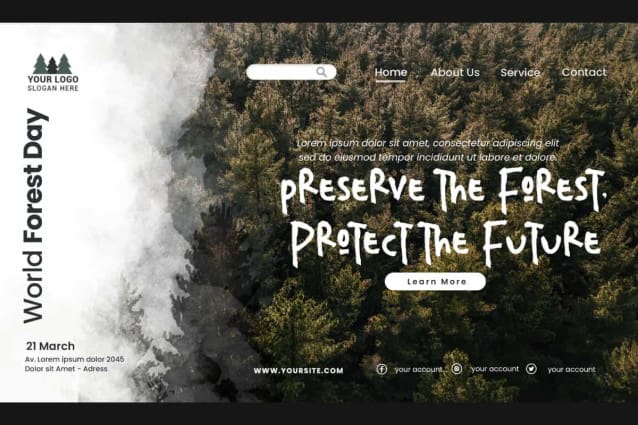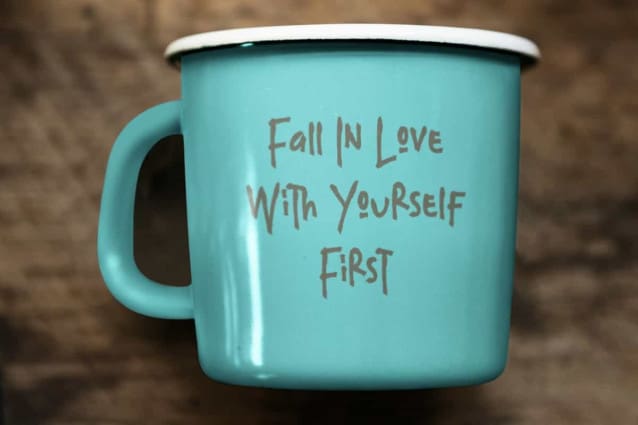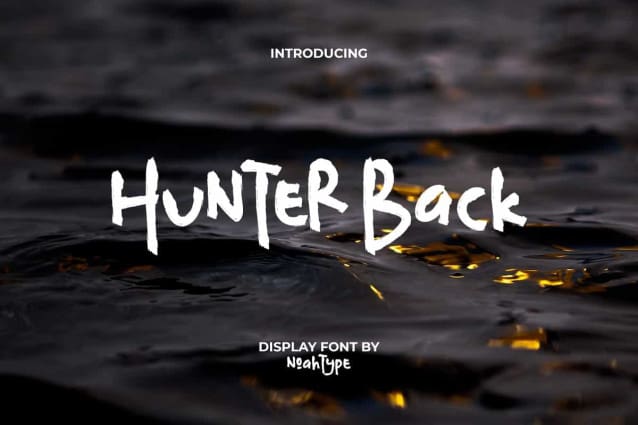
Hunter Back Font
Hunter Back Font is a fun playful textured brush display font by NoahType. This font has a texture like paint brush strokes which gives it a rough impression but still makes it stylish. It will be good for any designs, such as brand image, custom design, invitation, label, marketing material, menu, poster, product packaging, quotes, signage, web, and many more!
Hunter Back Font includes a complete set of Uppercase and Lowercase Basic Characters, Numerals, Punctuation, and Symbol. The characters of this font will give unique look and also a perfect choice for many industries, such as accessories, advertising, event or festival, fashion, game, printing, publishing, racing, sports, travel, etc.